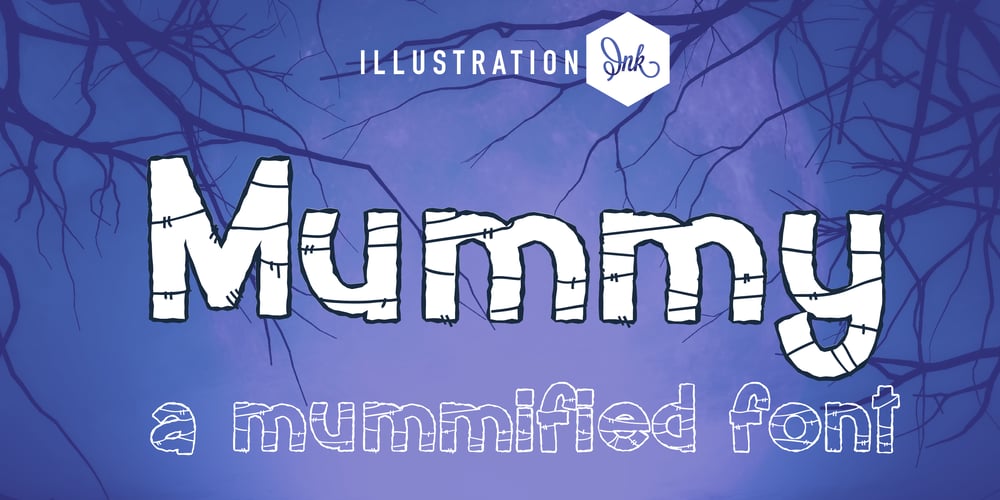
PN Mummy Font Family was designed by Illustration Ink and published by Illustration Ink. PN Mummy contains 1 styles and family package options. This hand-crafted font looks like each letter is wrapped in shaky mummified gauze. A hand-crafted font is a font that is designed to look like it was written by hand. It is often used for invitations, greeting cards, and other items. Handwritten fonts can be either formal or informal, and they can be used for a variety of purposes.Some of the characteristics of handwritten fonts include: The letters are not perfectly uniform in size or shape. There may be slight variations in the spacing between letters and words. The font may have a “wiggly” or “squiggly” appearance. The font may be difficult to read at small sizes. Handwritten fonts can be a great way to add a casual touch to your designs. They can also be used to create a sense of nostalgia or whimsy. However, it is important to choose a handwritten font that is appropriate for the project you are working on. A formal handwritten font may not be appropriate for a casual invitation, while an informal handwritten font may not be appropriate for a corporate document.